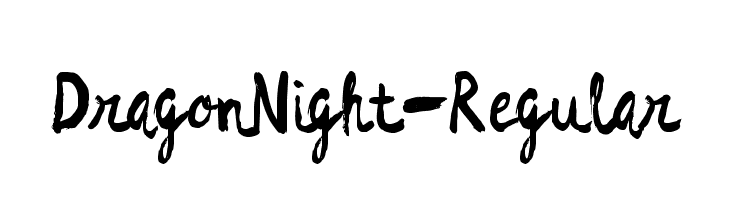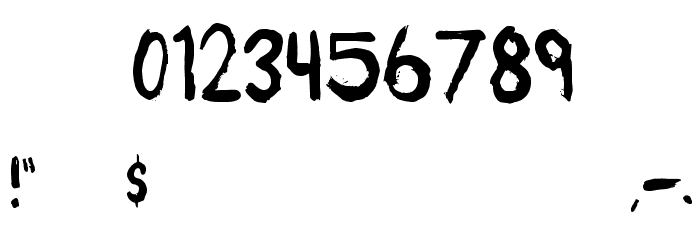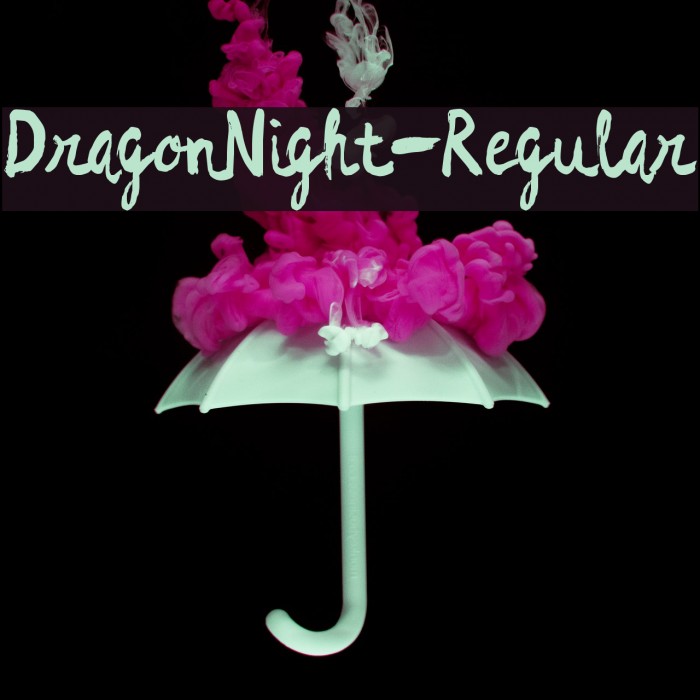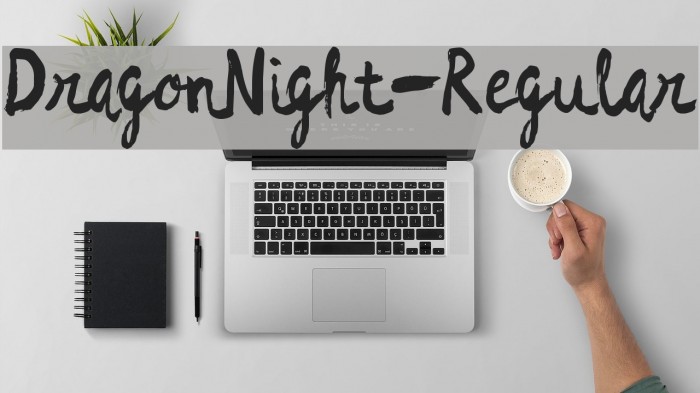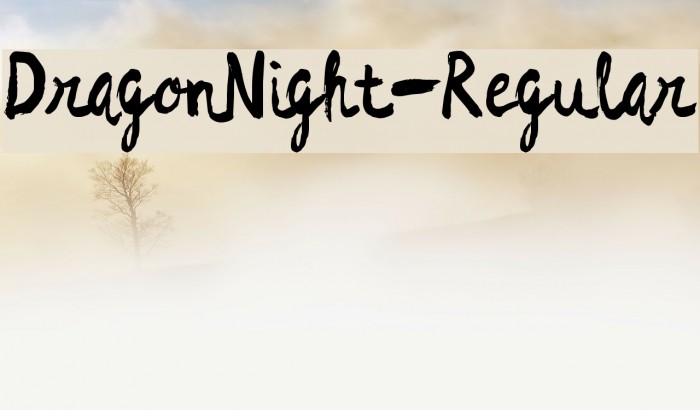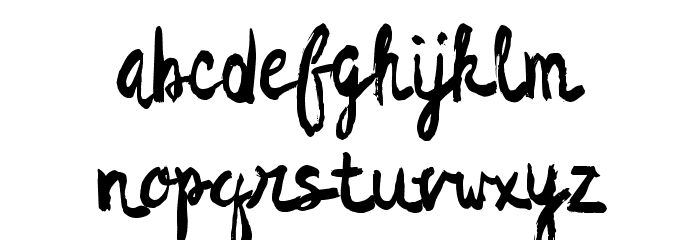
DragonNight-Regular Font
DragonNight-Regular Description
This font features a bold, expressive style with a hand-painted appearance. The letters are uneven and slightly rough around the edges, giving it a dynamic and energetic feel. The uppercase letters are bold and prominent, while the lowercase letters maintain a consistent flow with a slightly more delicate touch. Numbers and special characters follow the same artistic style, ensuring a cohesive look across all elements. The font's brush-like strokes and irregularities add a sense of movement and creativity, making it ideal for projects that require a personal, artistic touch.
A bold, hand-painted style font with expressive, brush-like strokes from Handwritten fonts.
- Proposed Projects: Ideal for artistic projects, posters, branding, and any design requiring a bold, creative touch.
- Use Case: Logos, Posters, Artistic projects